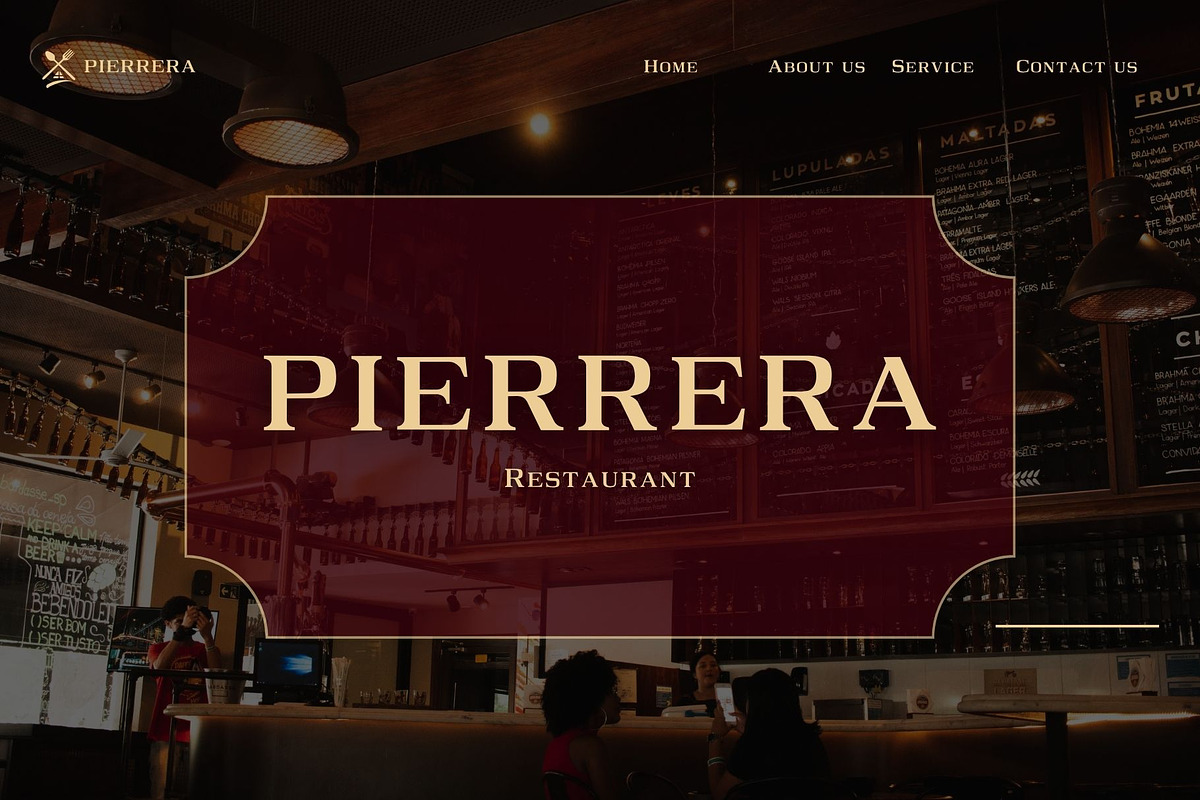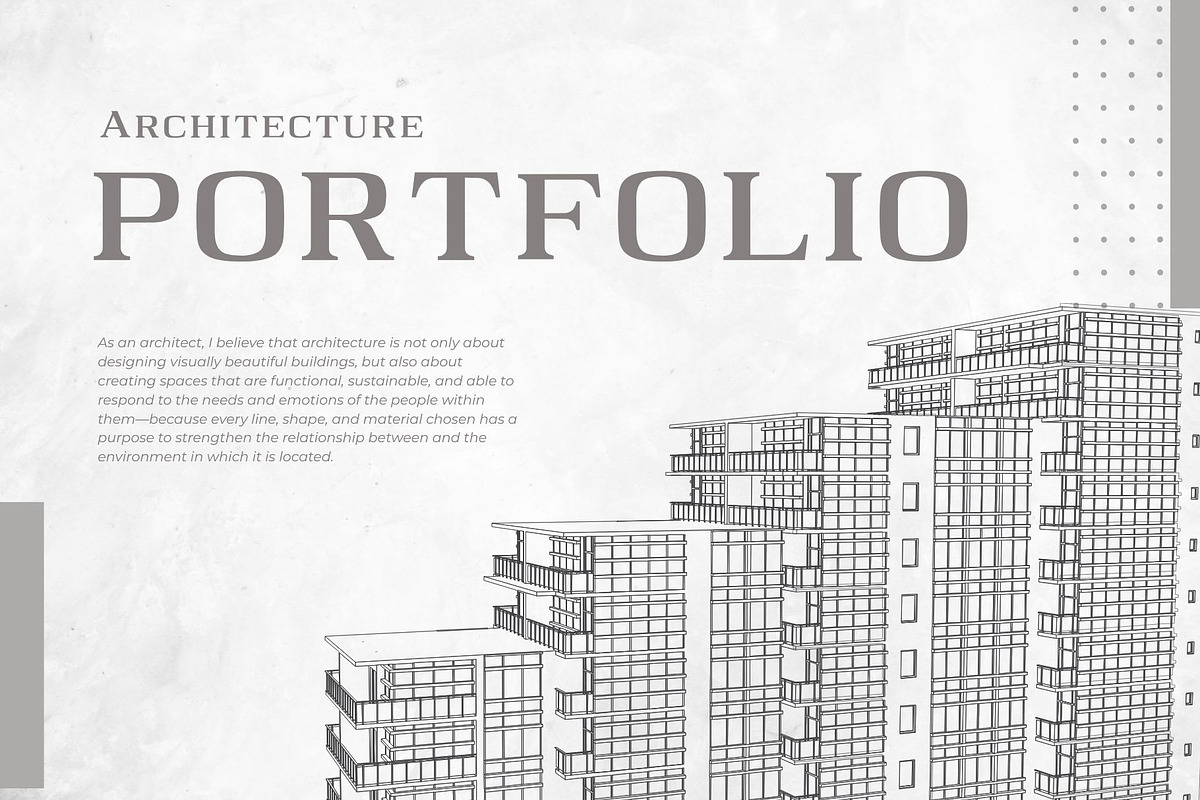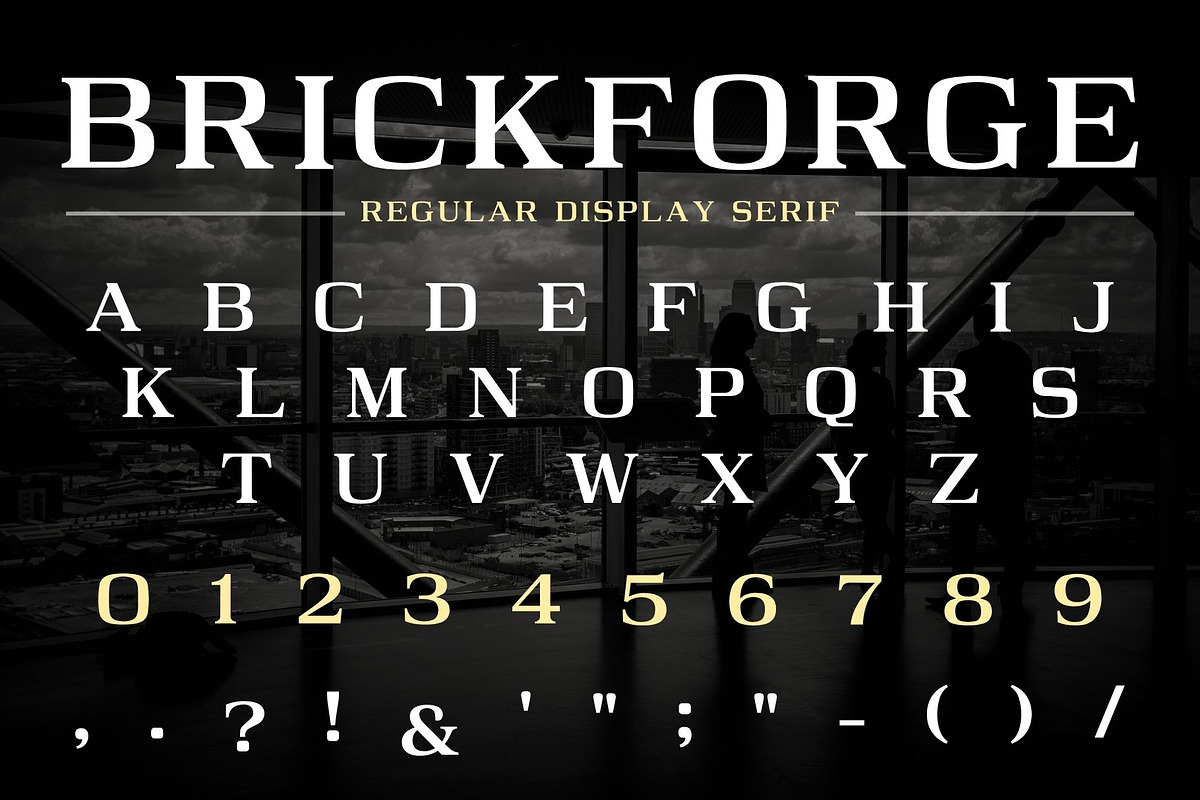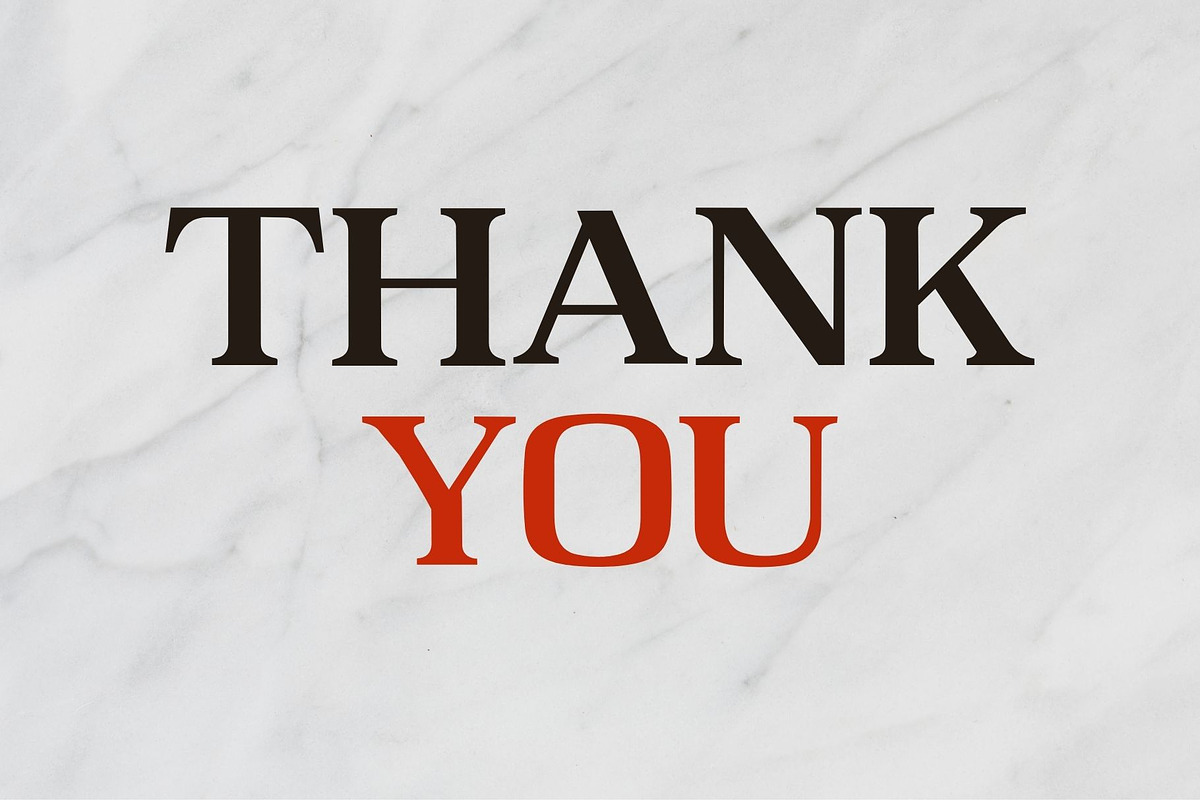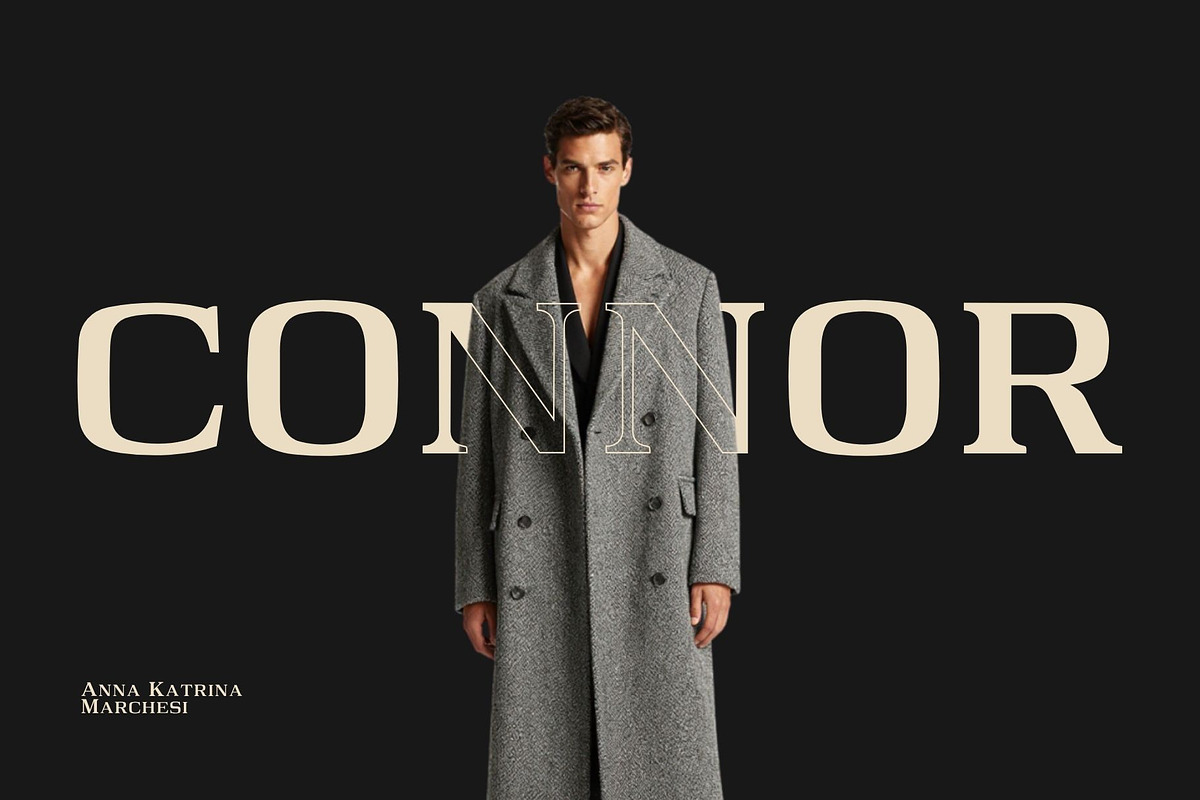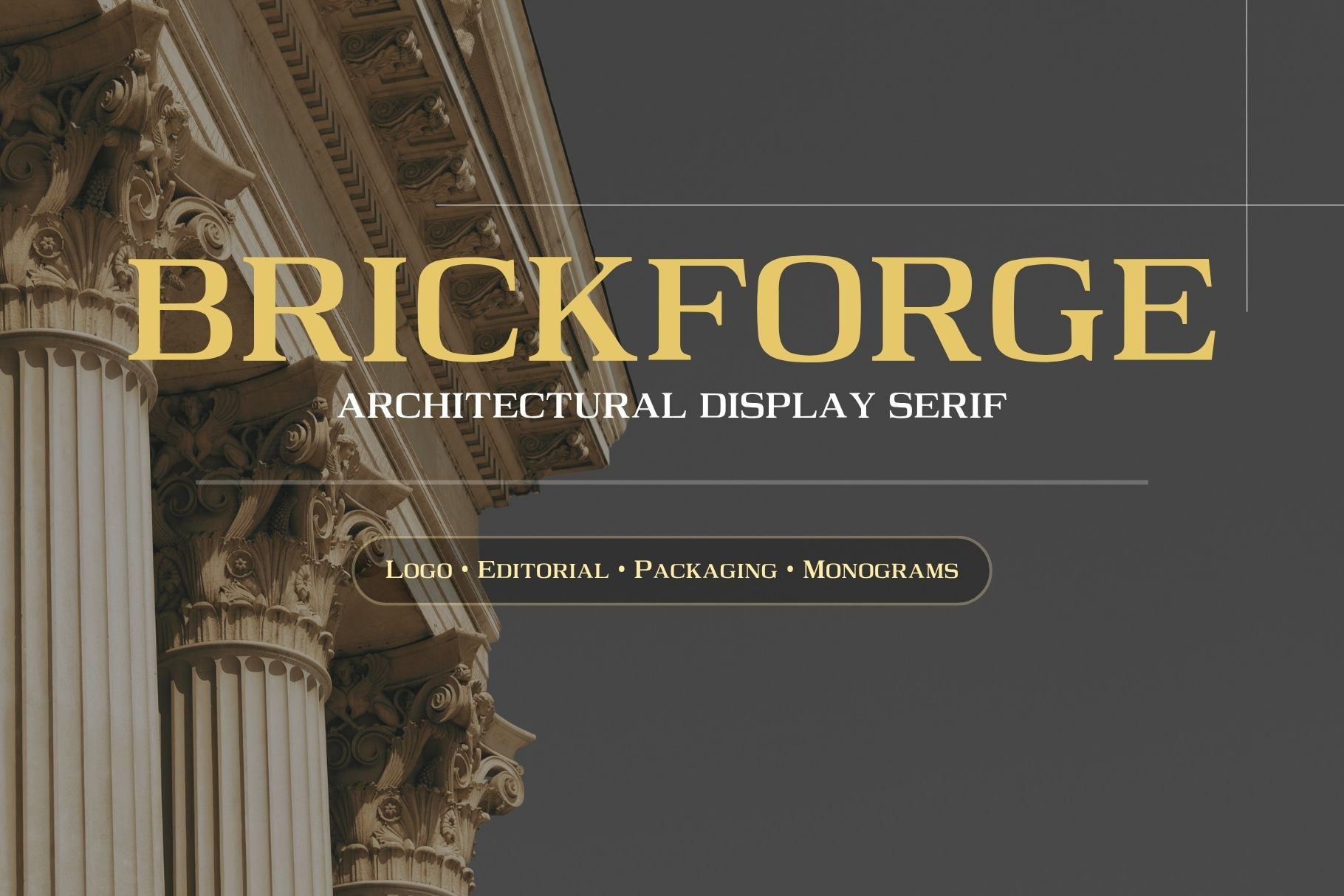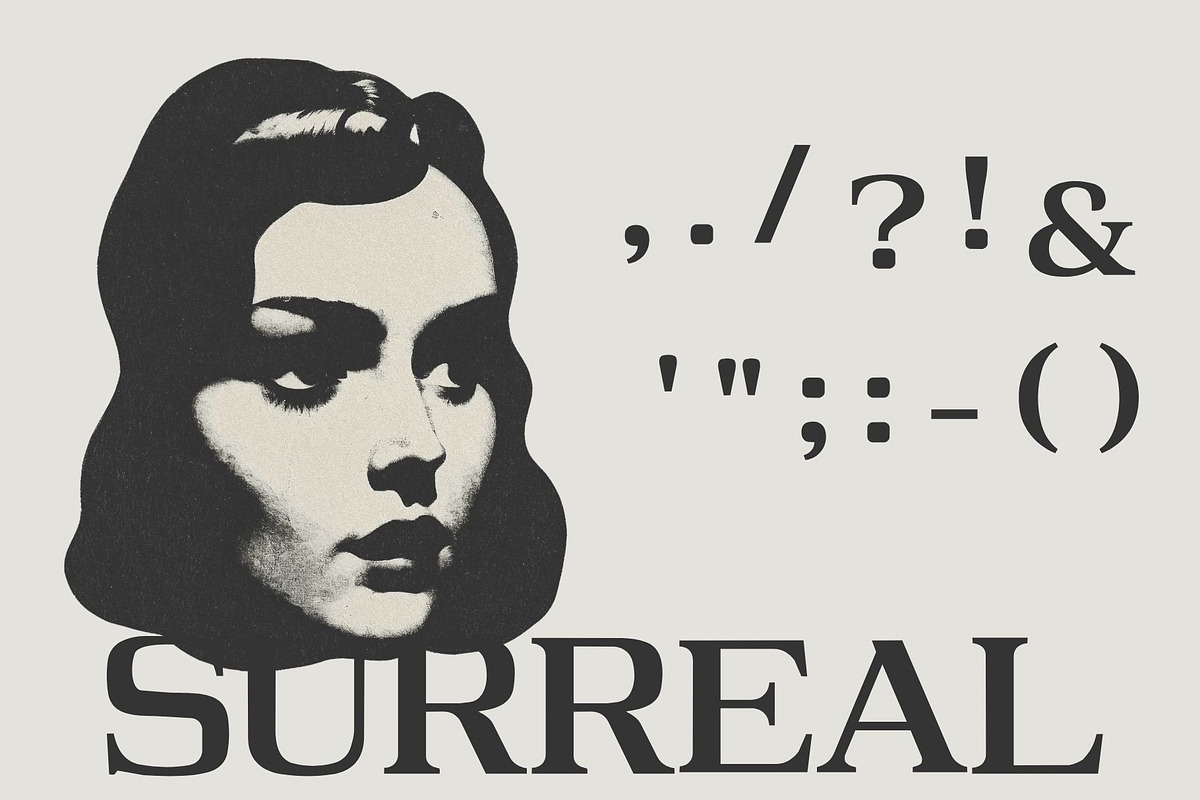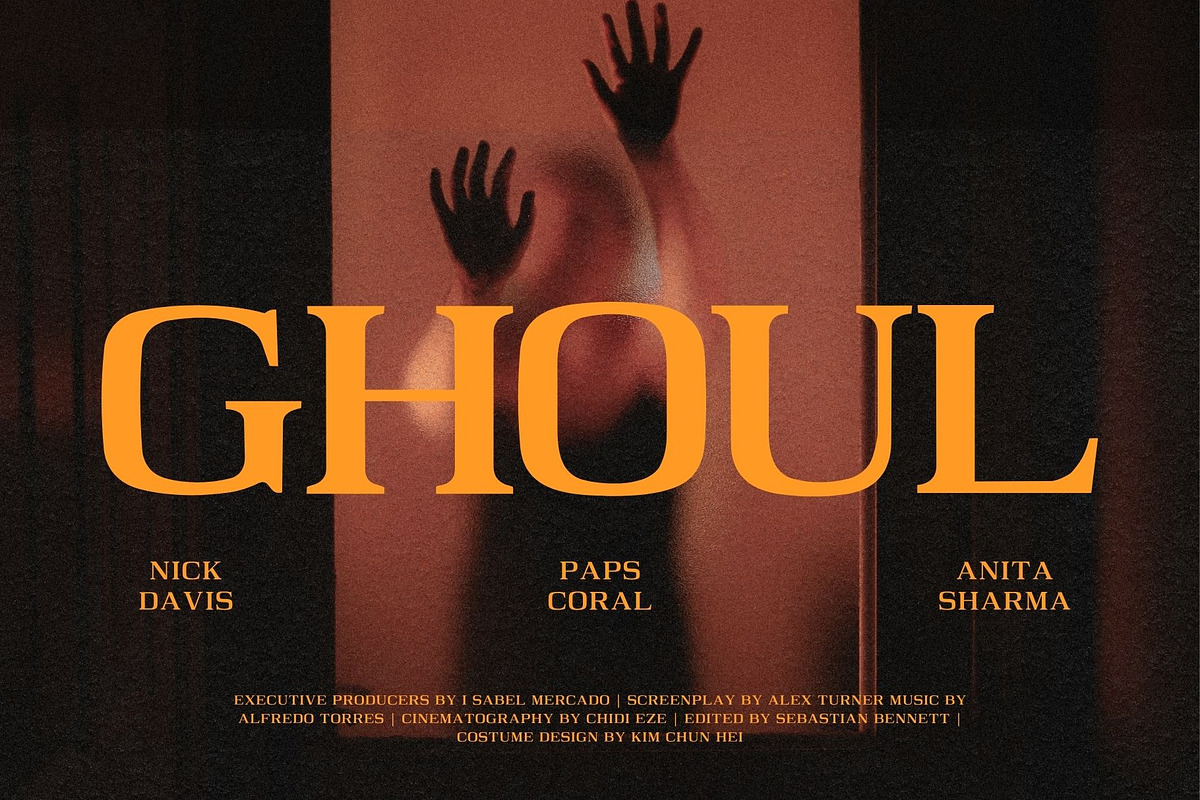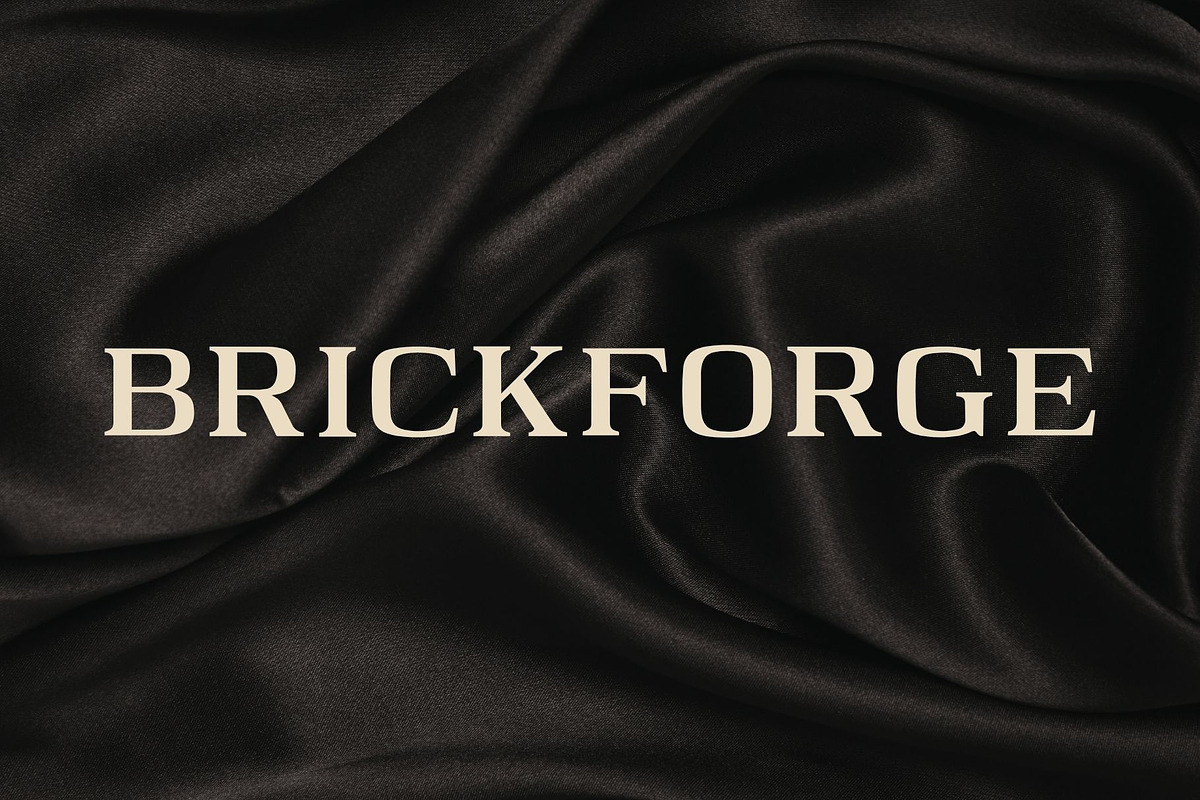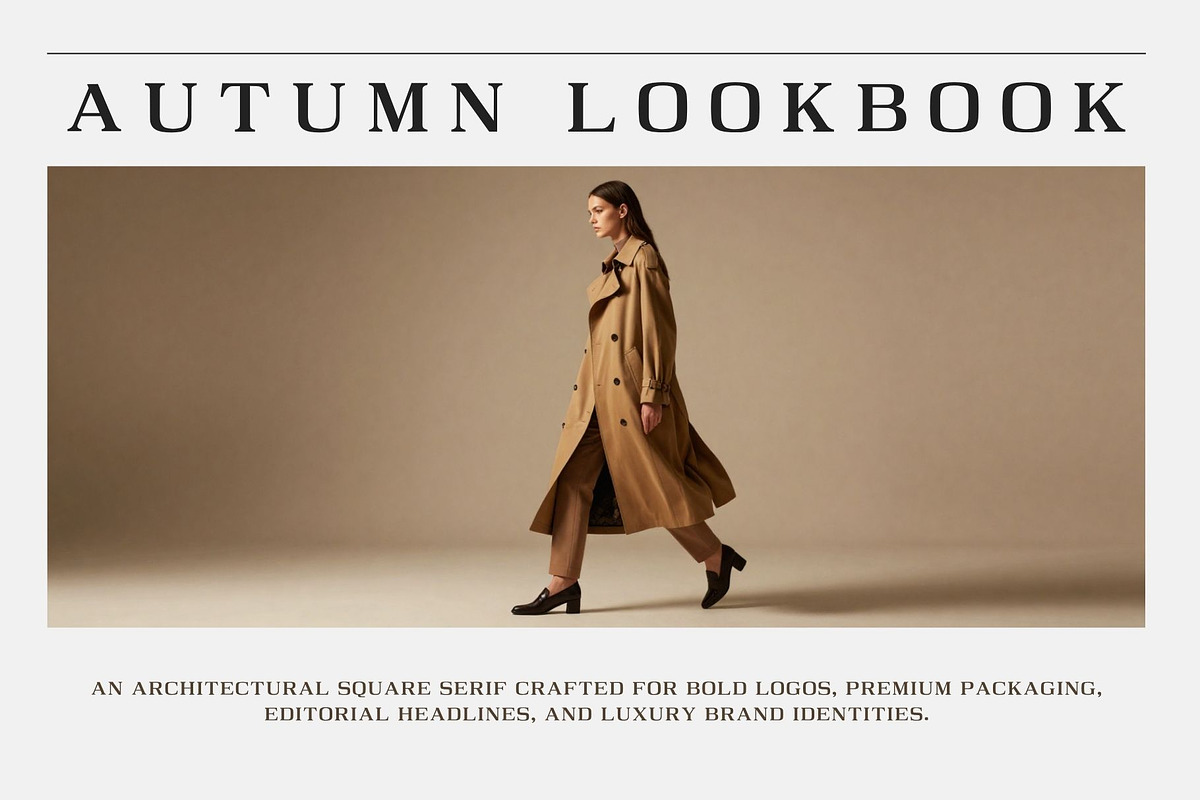
Brickforge Square Serif Display Font
Brickforge is a luxury square serif font made for bold logos, premium branding, editorial headlines, packaging design, monograms, labels, posters, restaurant branding, fashion layouts, architecture portfolios, and high-end visual identities.
This font has a strong architectural look with clean square letterforms, refined serif details, and a professional display style. Brickforge is perfect when you want your design to feel bold, structured, premium, and timeless.
The font includes uppercase characters, lowercase/small-cap style characters, numbers, punctuation, and multiple formats for easy use in your design projects.
Uppercase A-Z
Lowercase/small-cap style letters
Numbers 0-9
Basic punctuation and symbols
Logo design
Luxury branding
Editorial design
Magazine headlines
Product packaging
Premium labels
Monograms
Posters
Restaurant menus
Fashion branding
Architecture portfolios
Business cards and stationery
Brickforge works great for designers, brand owners, studios, and creatives who need a strong serif display font for professional and premium design work.